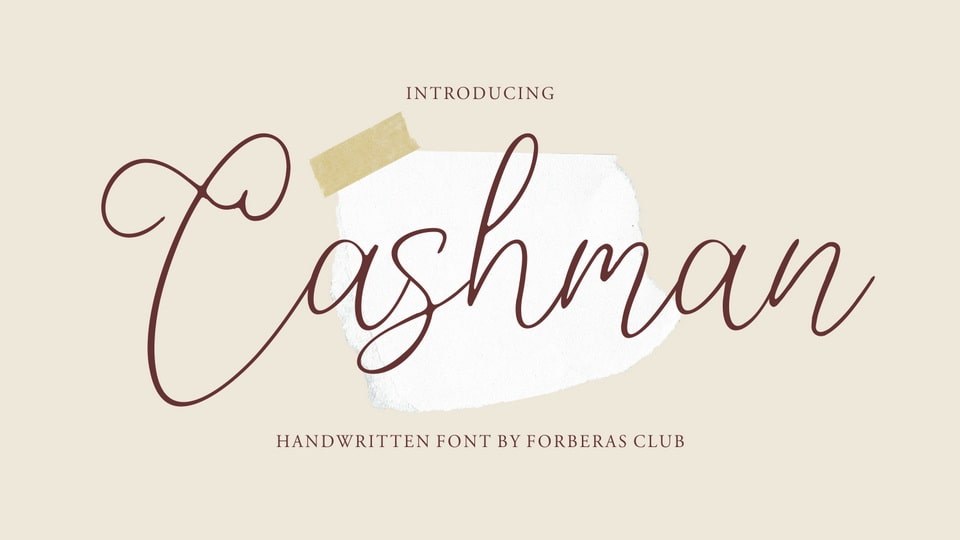
Download Cashman font, a script typeface inspired by modern and ligature characters. Cashman font is especially designed for luxury, elegant, feminine projects.